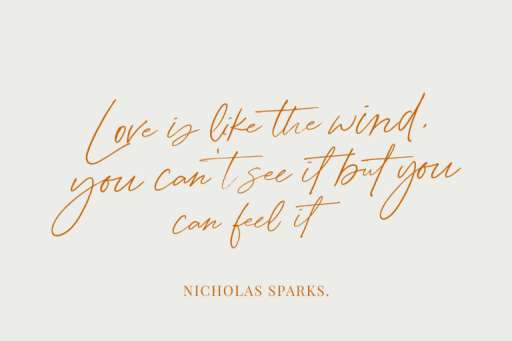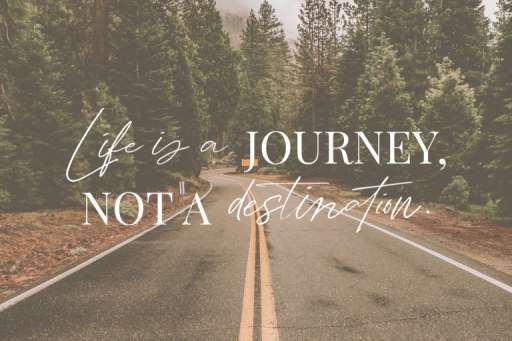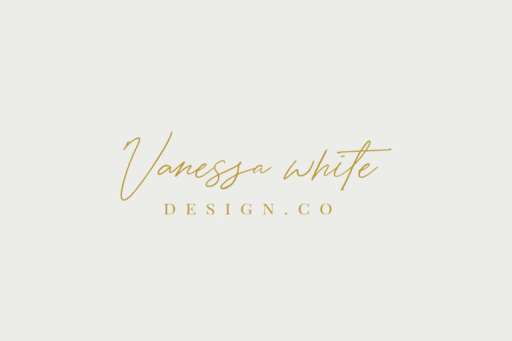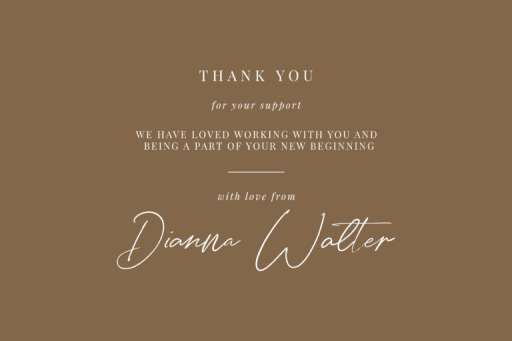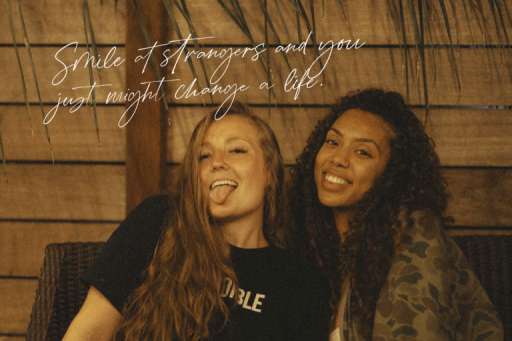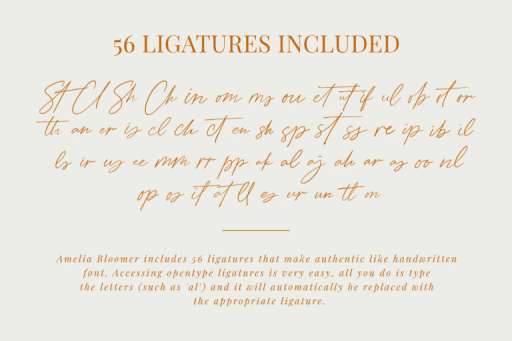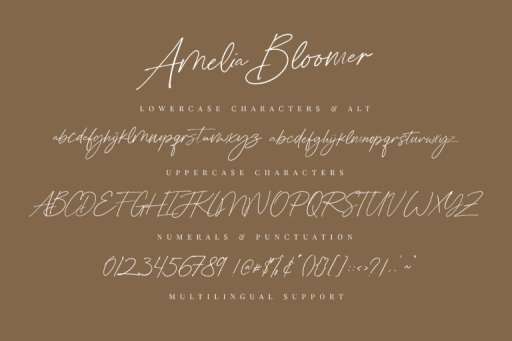
Amelia Bloomer Font - Script Business Font From Jimtype Studio
Amelia Bloomer Regular
Amelia Bloomer – Handlettering Script
Amelia Bloomer is a handwritten script font casual perfect for creating branding project, handwritten quotes, beautiful logos, wedding invites, branding projects, signage, social media, handcrafted, blog posts, packaging, and more!
Amelia Bloomer includes a full set of gorgeous uppercase and lowercase letters, numerals & punctuation, and 56 ligature to help the text flow naturally and add a custom-made feel.